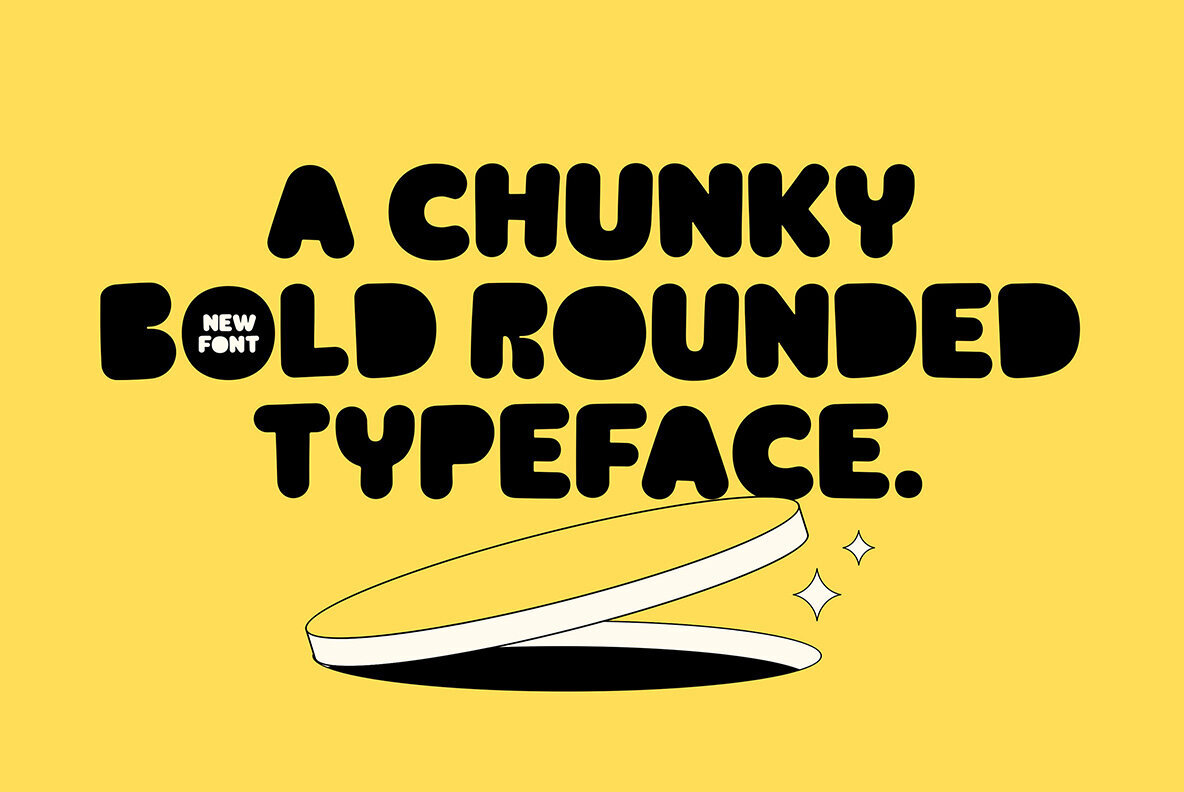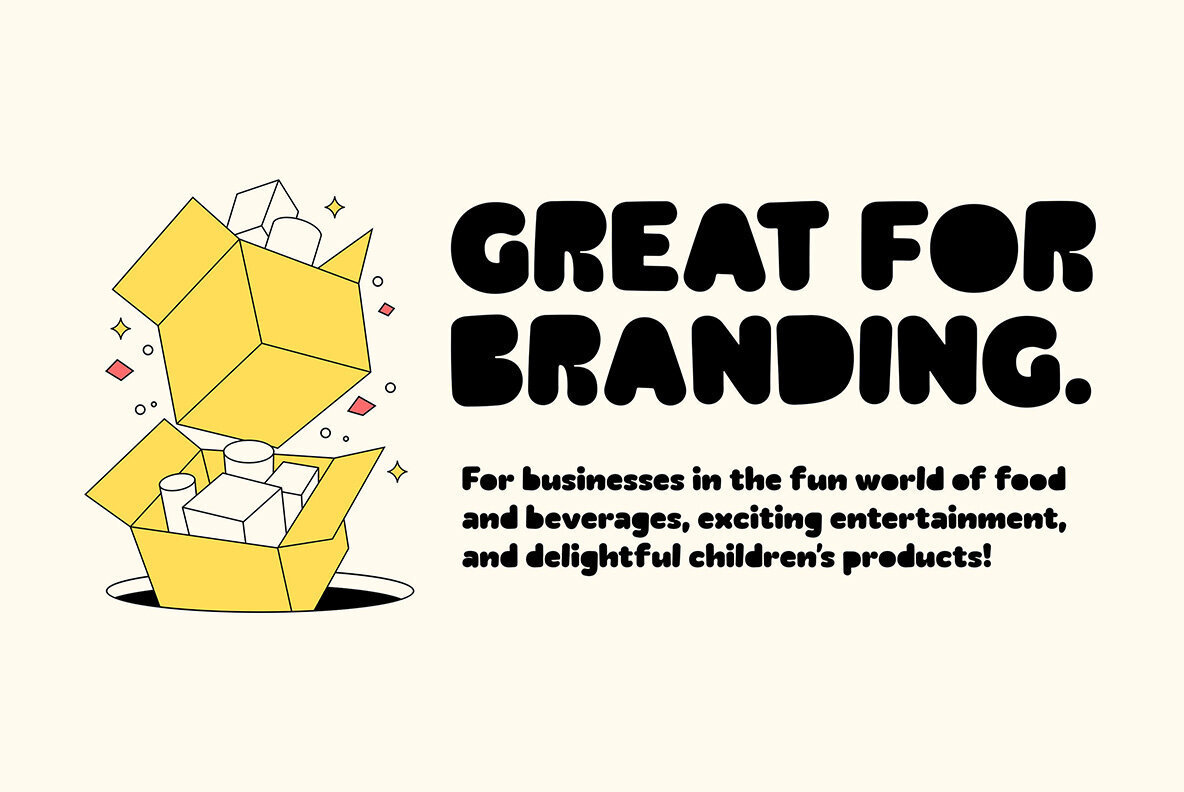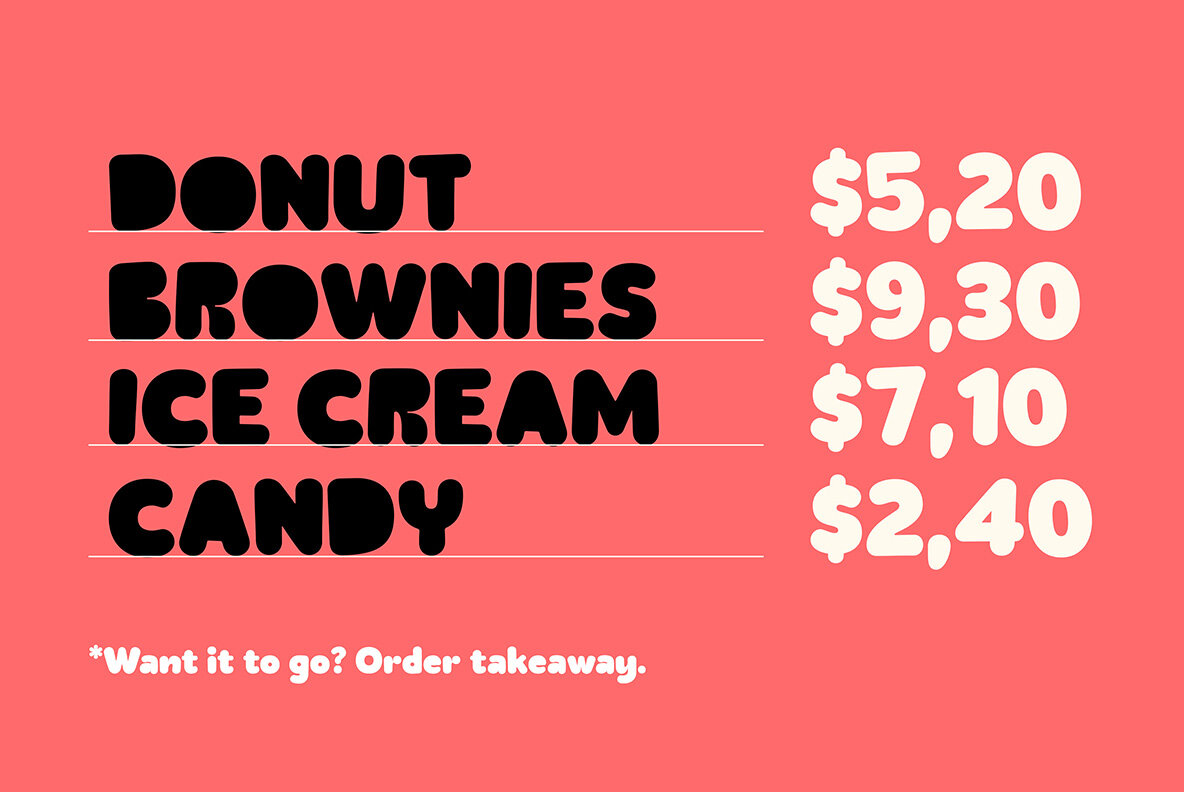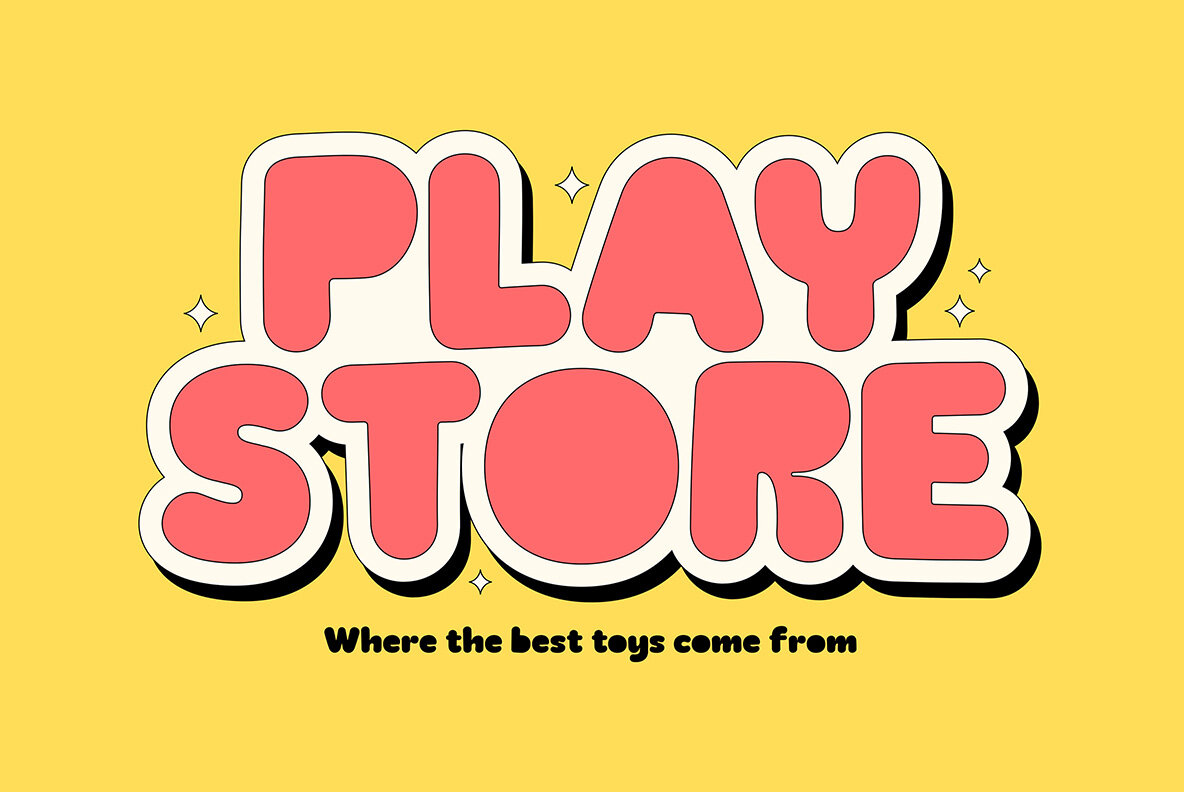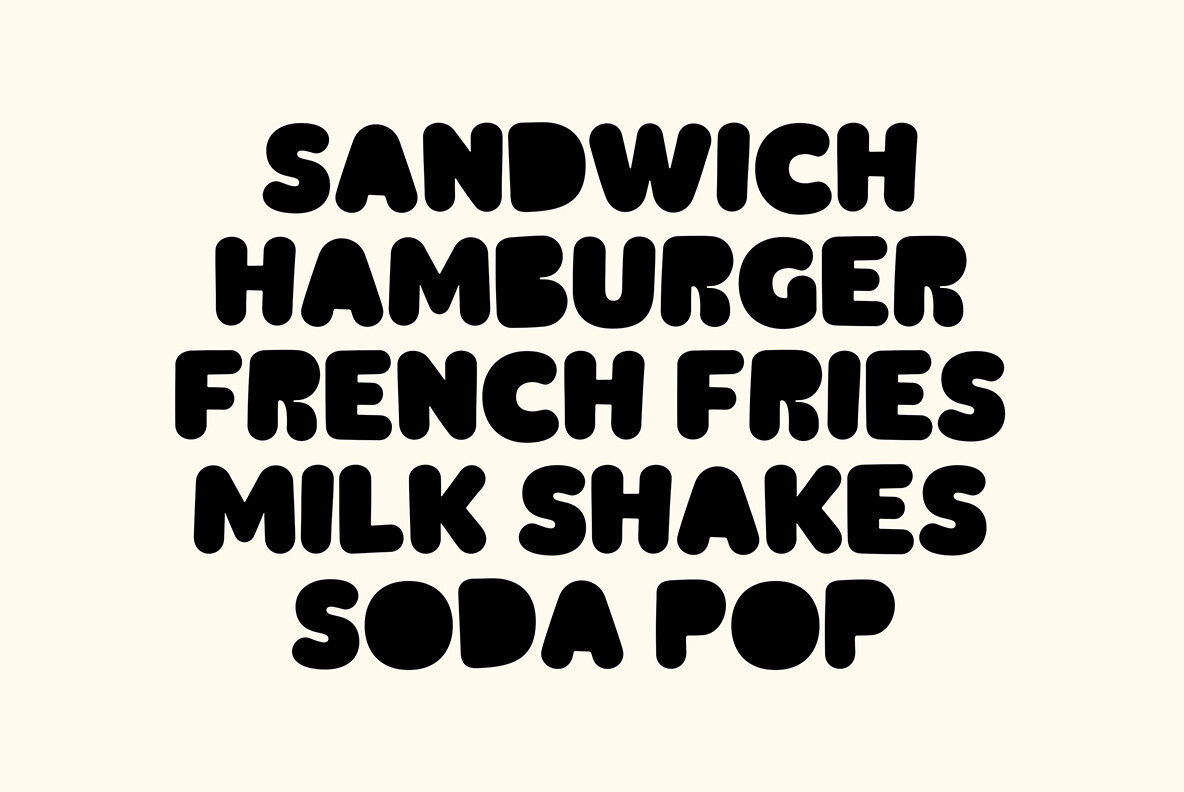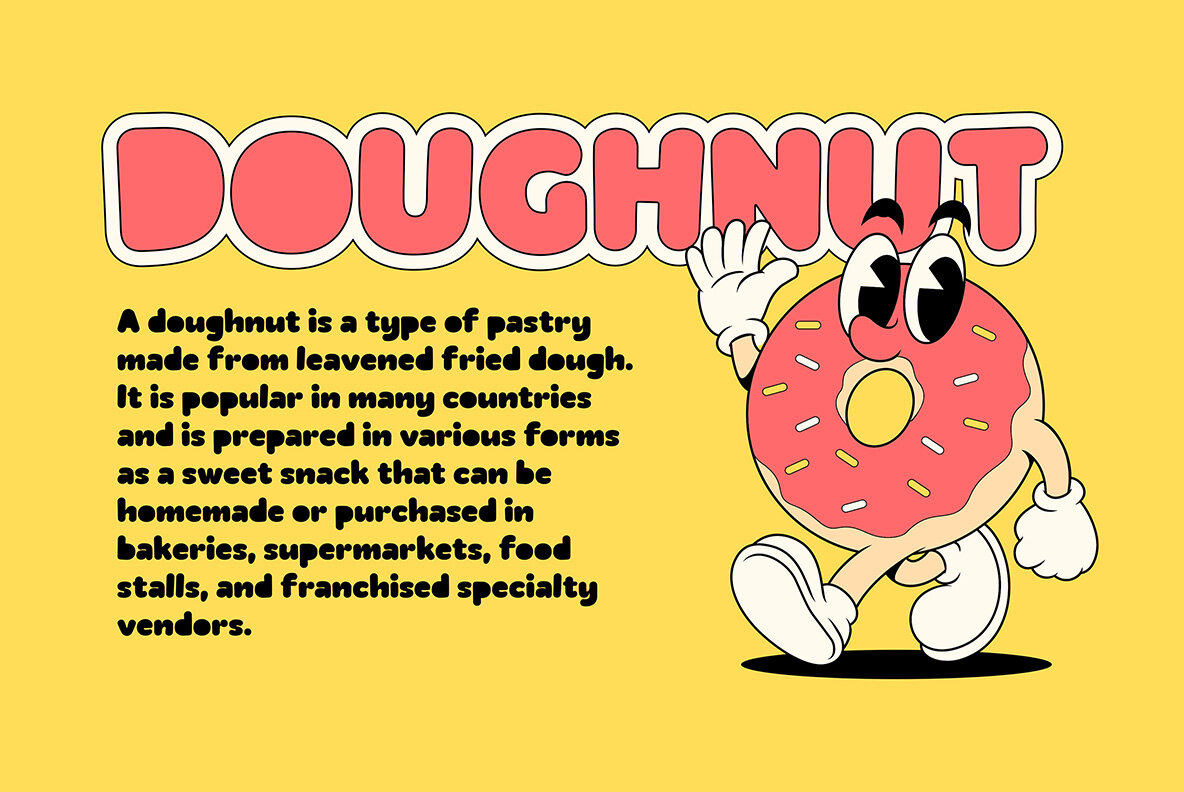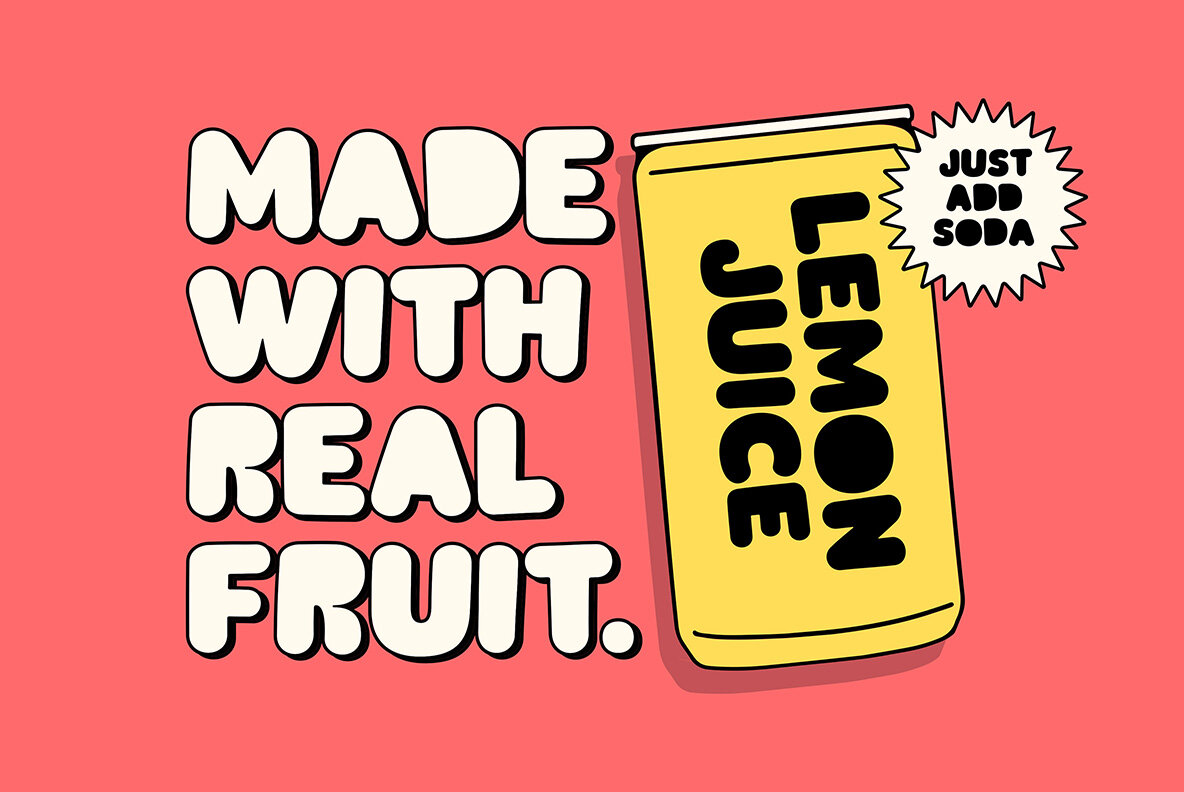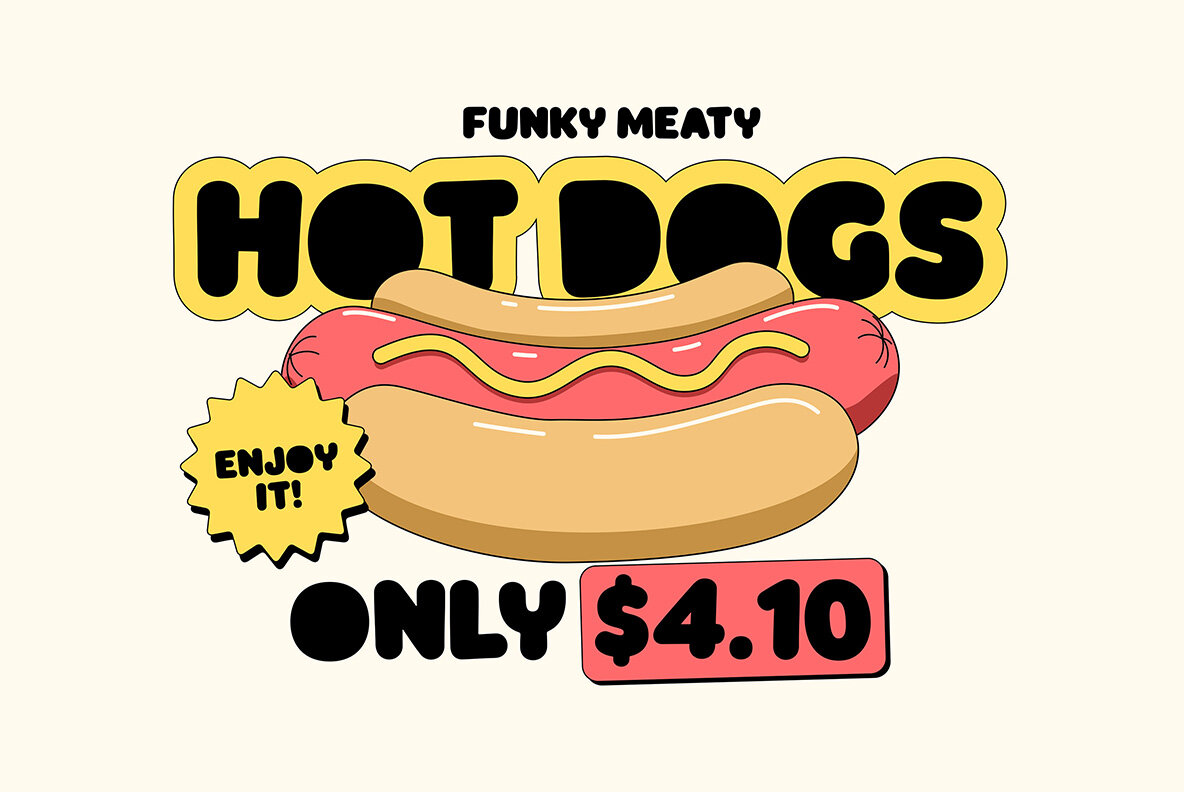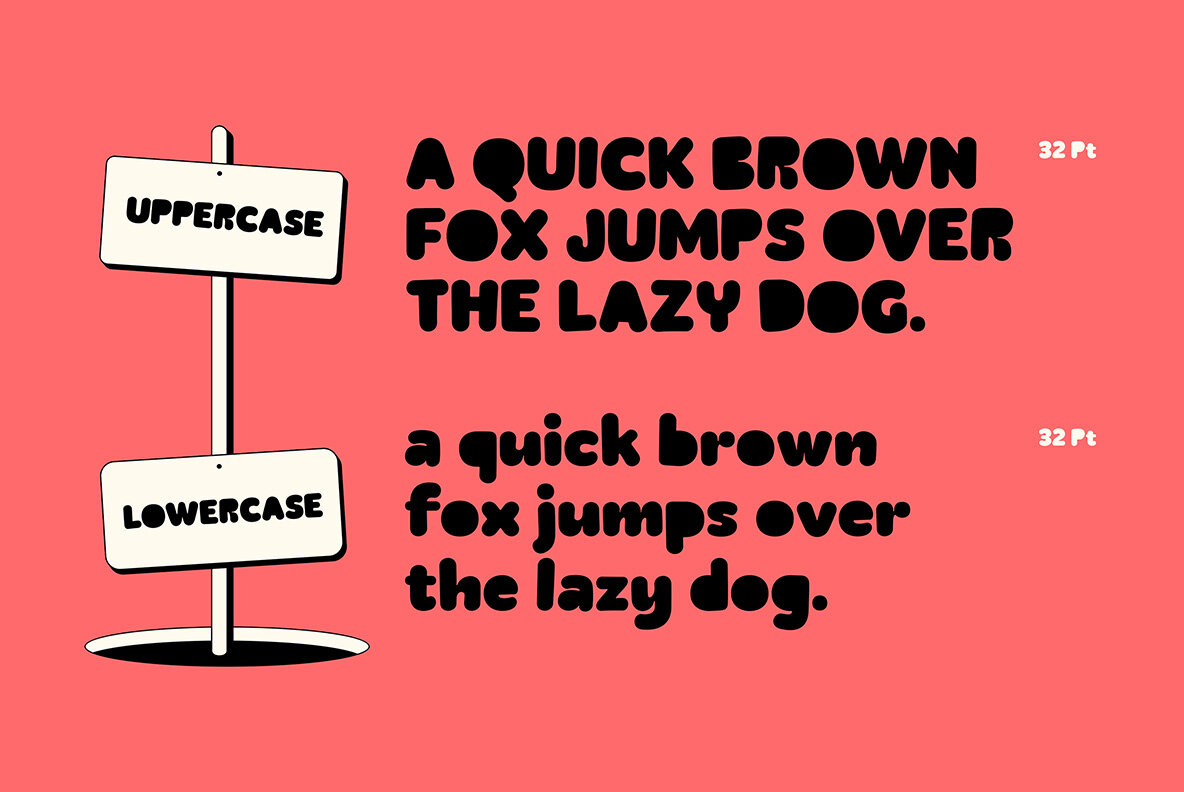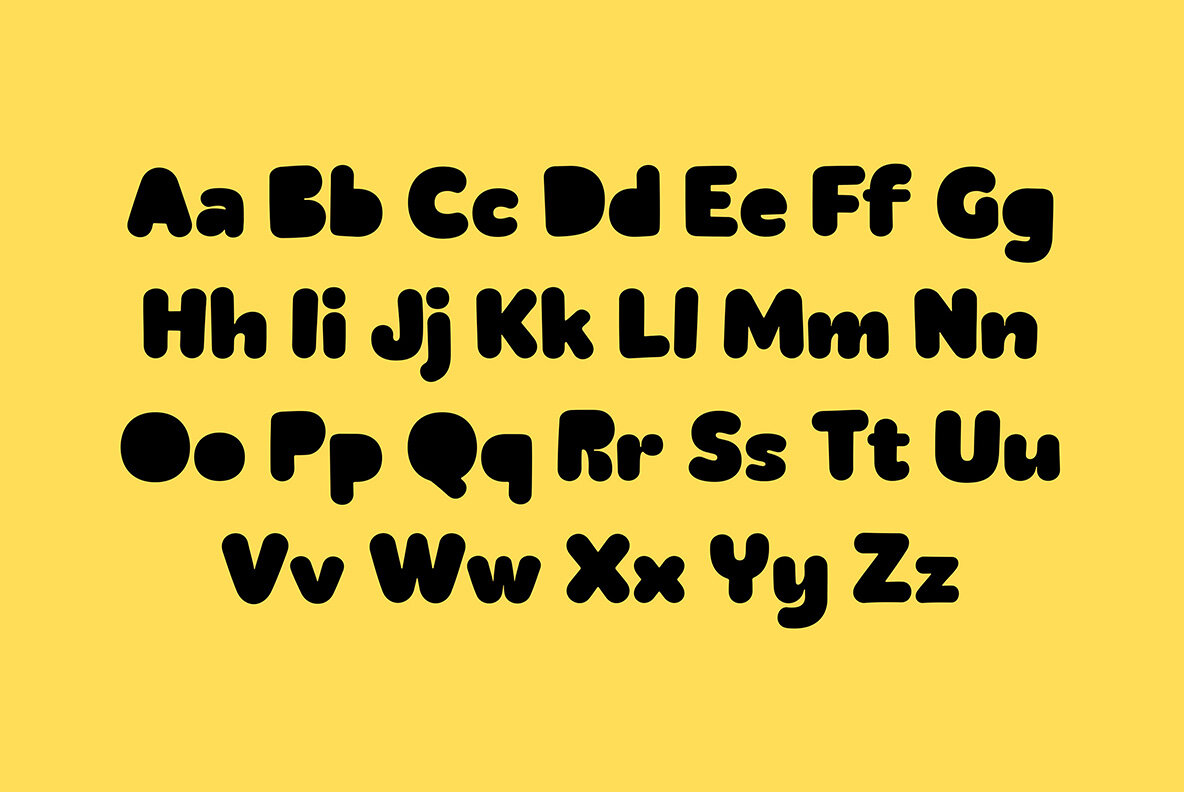
Caphole Font
Caphole Regular
Caphole is a font that perfectly encapsulates nostalgia, taking you back to a time when food was delicious and indulgent. Its delightfully curved shape makes it ideal for products with a retro feel. Caphole infuses your packaging, labeling, and advertising with a delicious nostalgic appeal to bring the joy and pleasure of the past into the present. This font instantly evokes images of nostalgia, soda fountains, and food trucks that are instantly recognizable with rounded corners and chubby shapes.